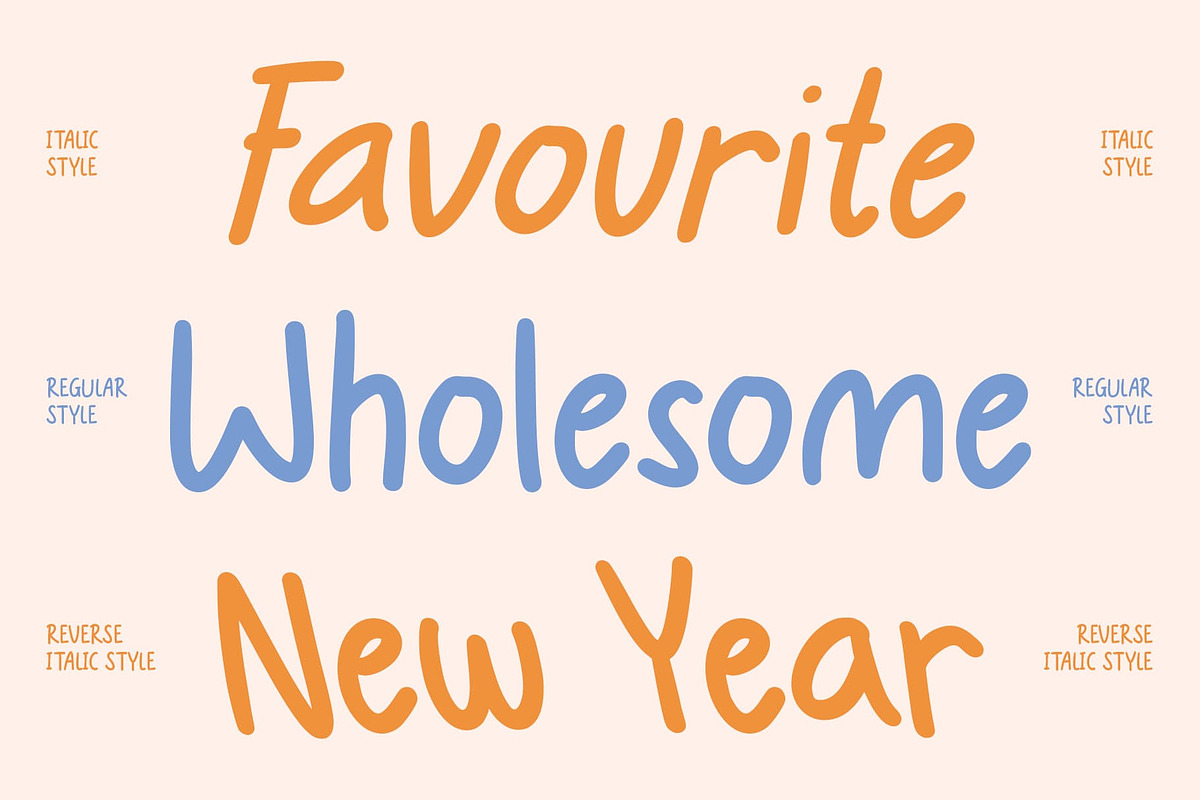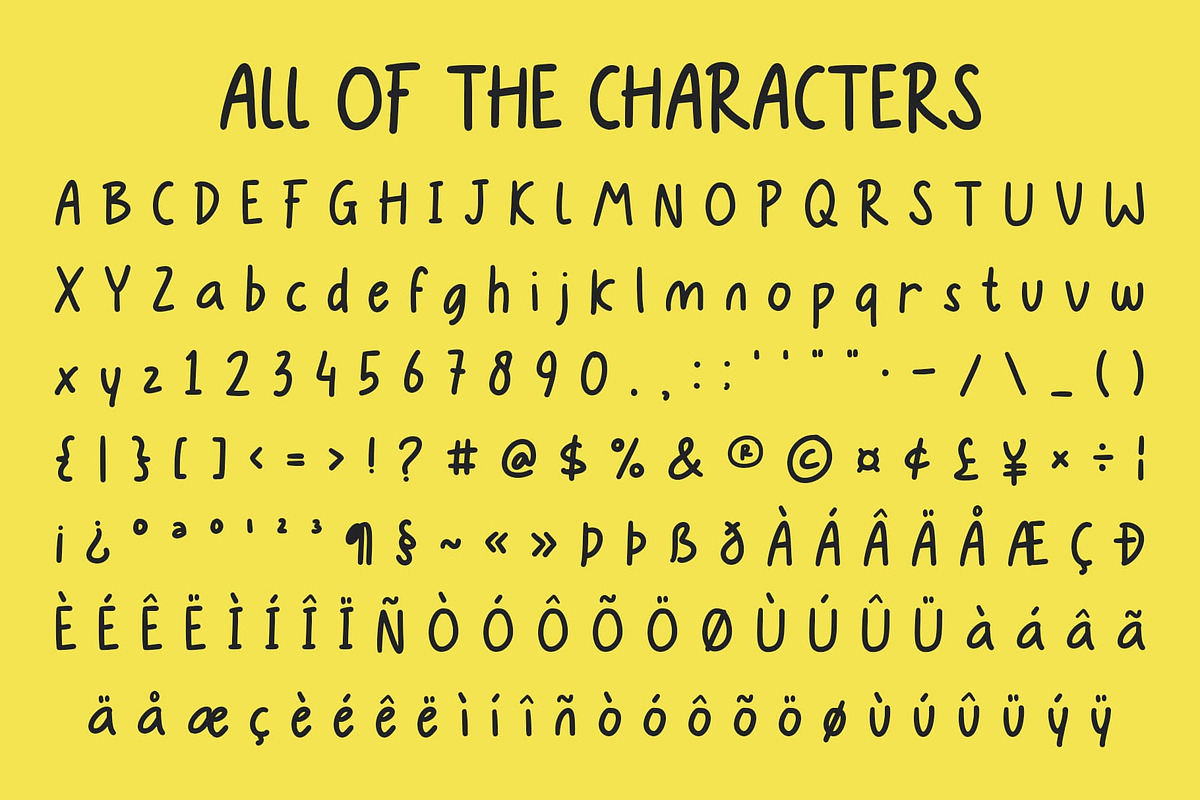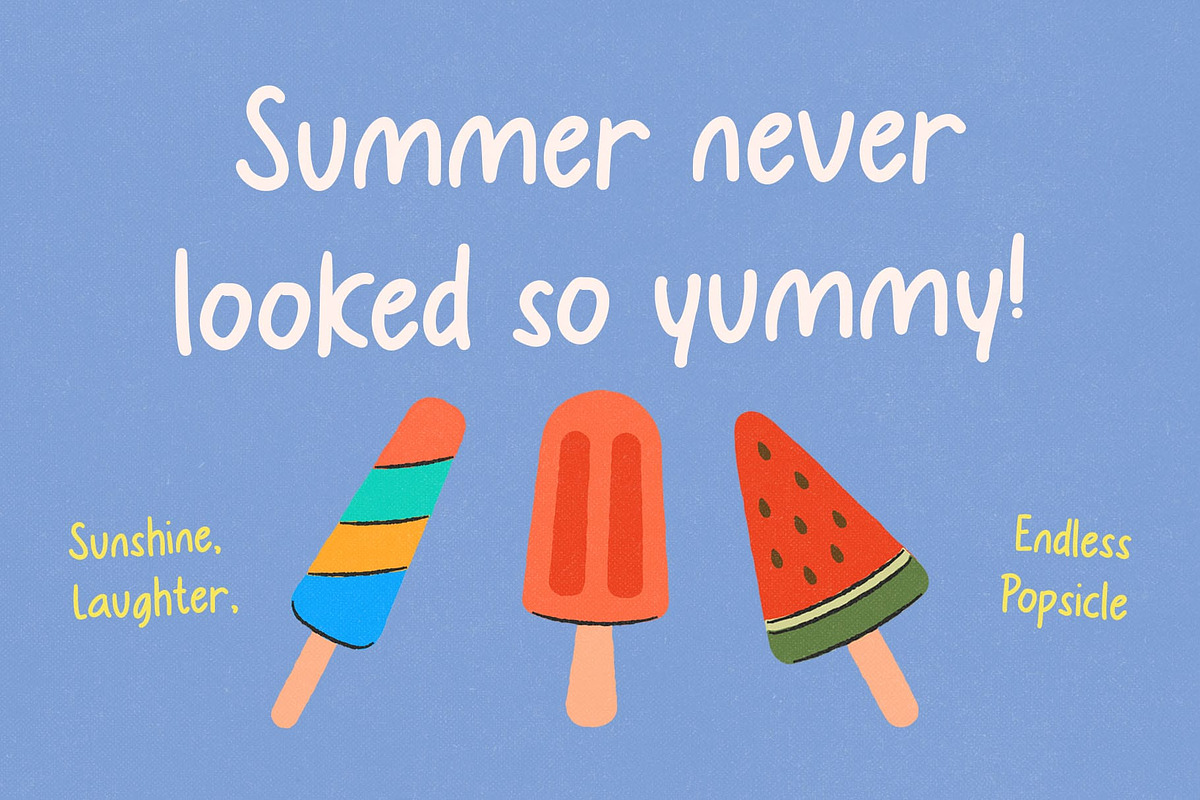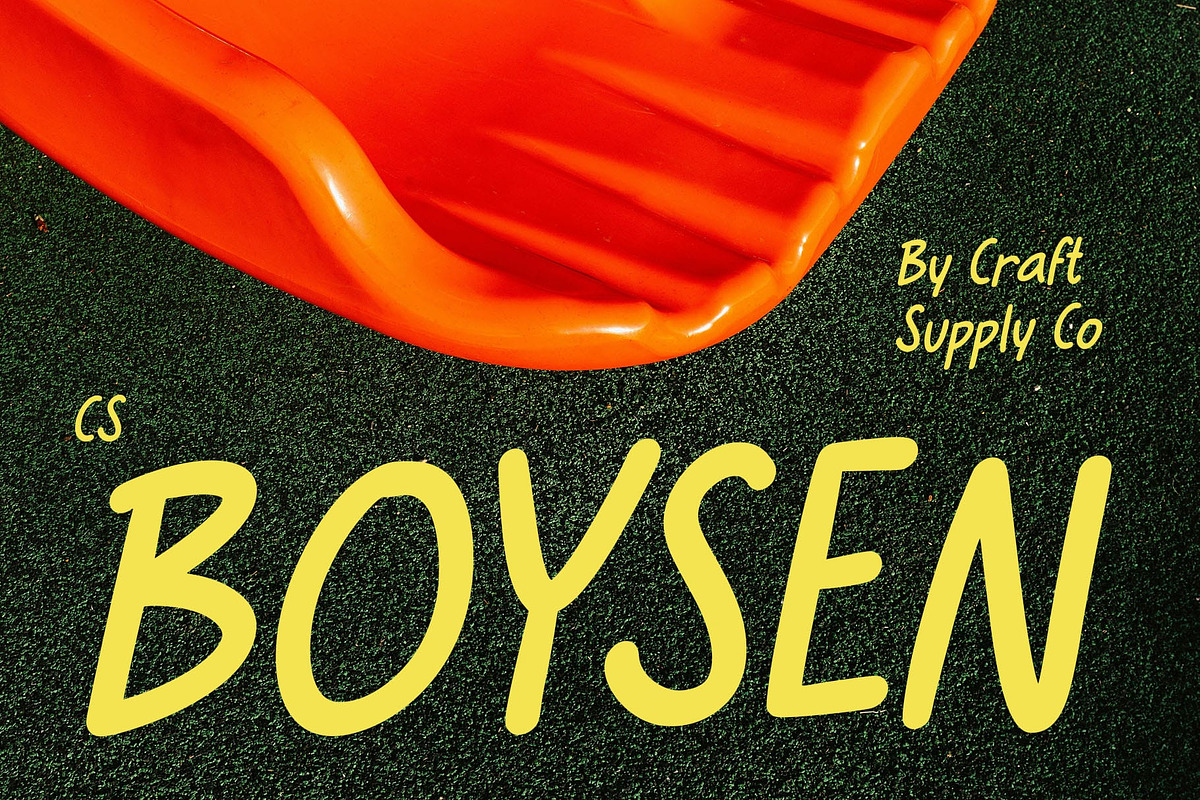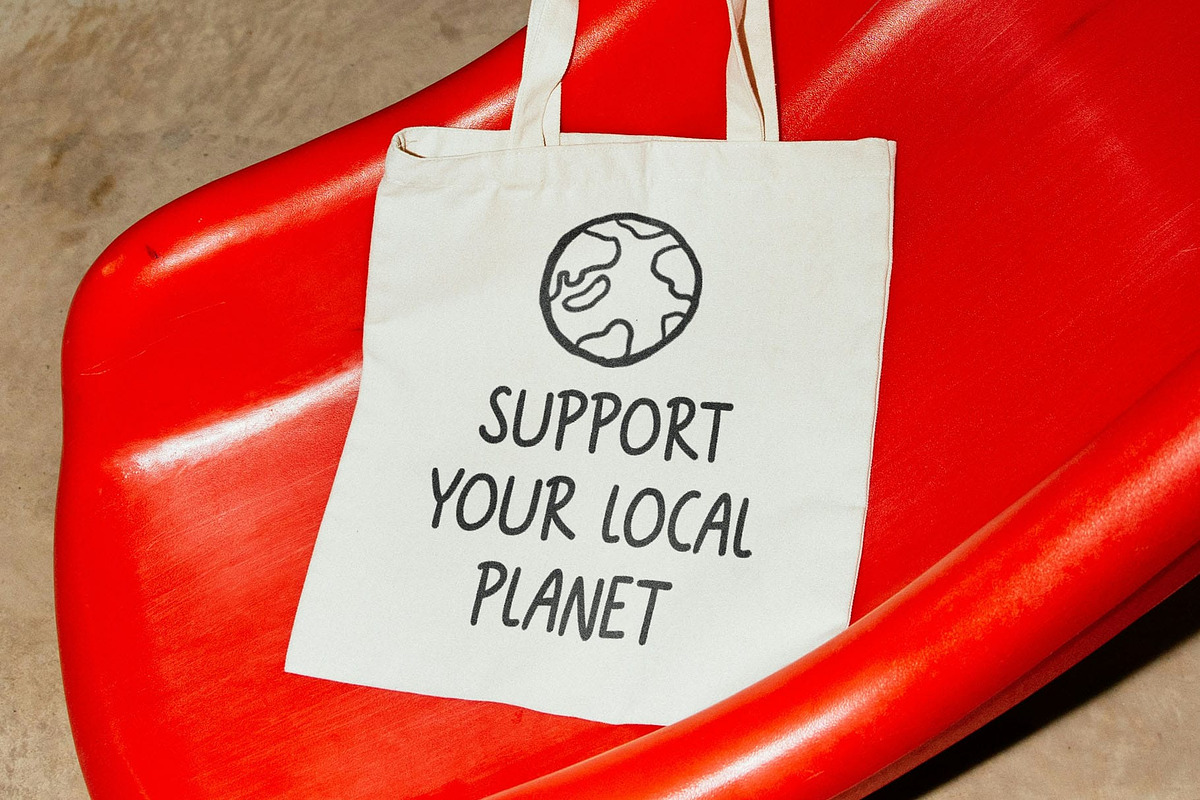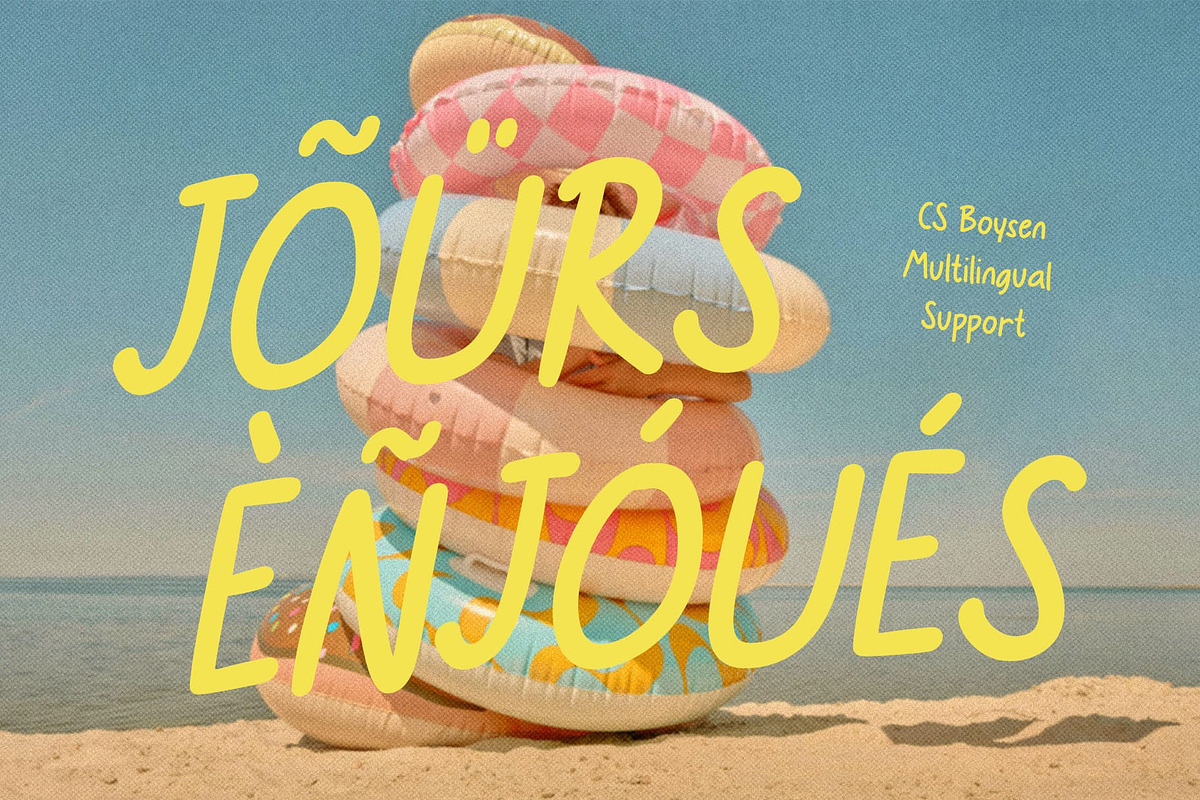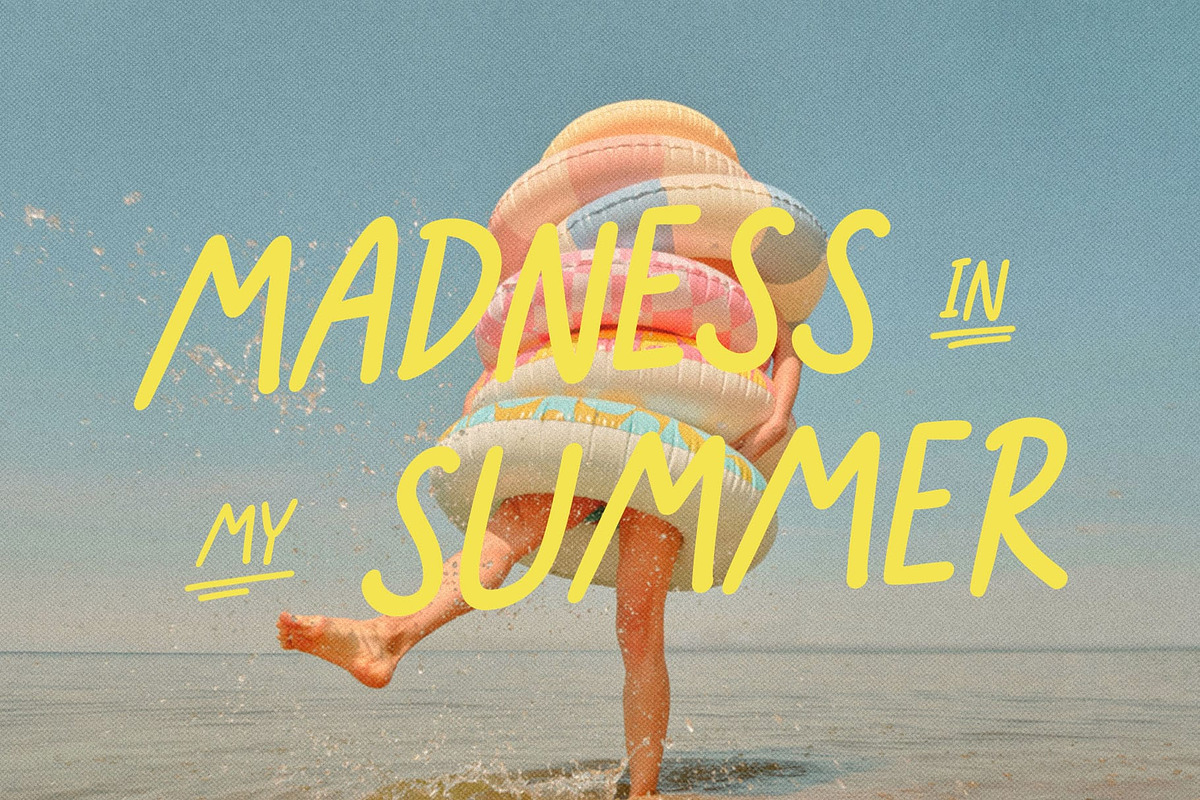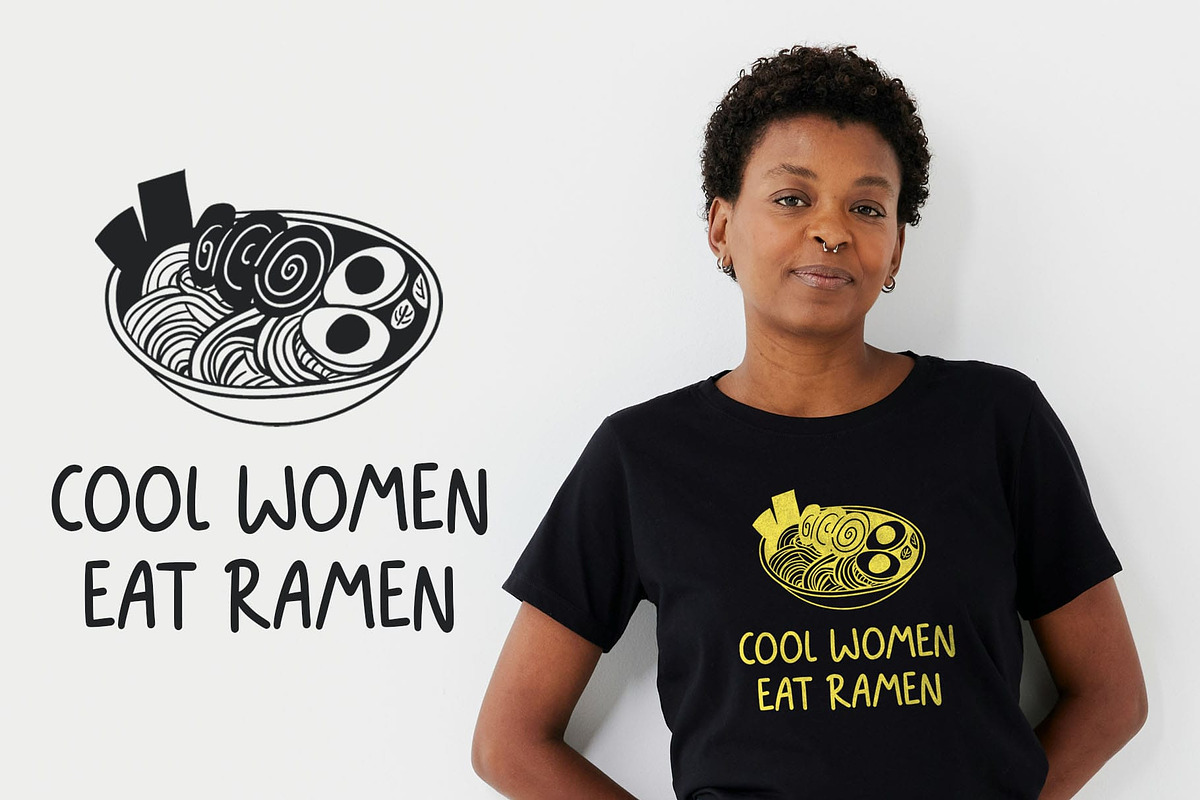
CS Boysen – Handwritten Font
CS Boysen: Joyful Handwriting Full of Character
Handwritten Font with Rounded Strokes This is a friendly handwritten font that bursts with joy and creativity. Its sans serif rounded strokes and playful shapes give it a natural, approachable feel perfect for adding warmth and personality to any design. Designed to look spontaneous yet balanced, this font captures the charm of handwriting with a fun and lively twist.
Rounded Strokes for a Soft and Welcoming Feel The smooth, rounded edges of this font create a comforting and cheerful impression. Each letter flows effortlessly, reflecting a sense of friendliness and openness. This makes it a perfect choice for designs aimed at children or audiences who appreciate a lighthearted and inviting aesthetic.
Playful Shapes for Creative Expression This font stands out with its fun, slightly quirky letterforms that bring visual rhythm and movement to your text. Its playful character makes it ideal for kids’ books, educational materials, or creative posters where imagination and happiness take center stage.
Perfect for Fun and Whimsical Designs From children’s projects to joyful branding or cheerful event graphics, this font adapts seamlessly to a variety of creative uses. Its handwritten charm and approachable personality make it an excellent choice for designs that need warmth, positivity, and energy. With this font, every word feels friendly, genuine, and delightfully fun.